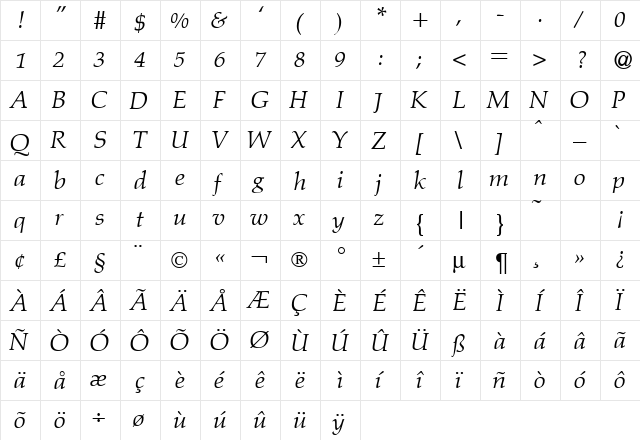
PalinoWerkDB Italic
Design Context for PalinoWerkDB Typeface
PalinoWerkDB takes a measured approach to typography — its balanced proportions and neutral character make it a reliable workhorse for both digital and print work. The slanted form adds forward momentum and visual energy.
Pro Tip: Use PalinoWerkDB for emphasis, pull quotes, and subheadings where its slanted energy can add rhythm to the layout.